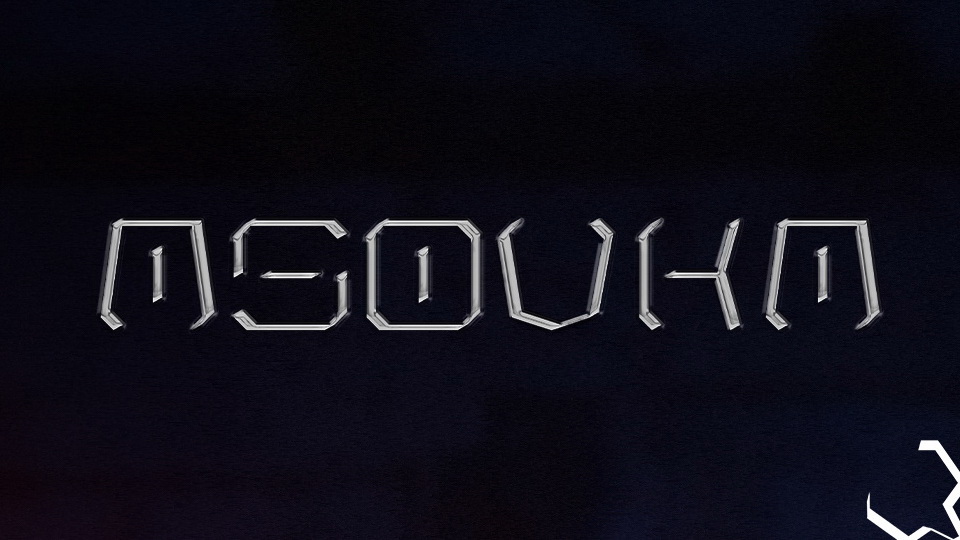
Feb 9, 2025DisplayAsovka Font Asovka is a block display typeface created with the same width of letters. The font is perfect for poster designs or cover artworks. Font DetailsDesigned by: Luis H. J. RappWebsiteLicense: Free for commercial use Download Asovka FontFile size: 6.87 KBCreated: February 16, 2025Updated: February 16, 2025 Download Explore similar fonts Coastal Change Font Shizuoka Cyberpunk Font Massive Change Font Venmoz Font Say Font KAI.01 Font Family # Block# Creative# Futuristic# Geometric More fonts by Luis H. J. RappKarpaten FontBrutalism FontMabrax FontAcrepis FontObarne-X TypefaceInter Norse FontIkarus FontCrooked Font